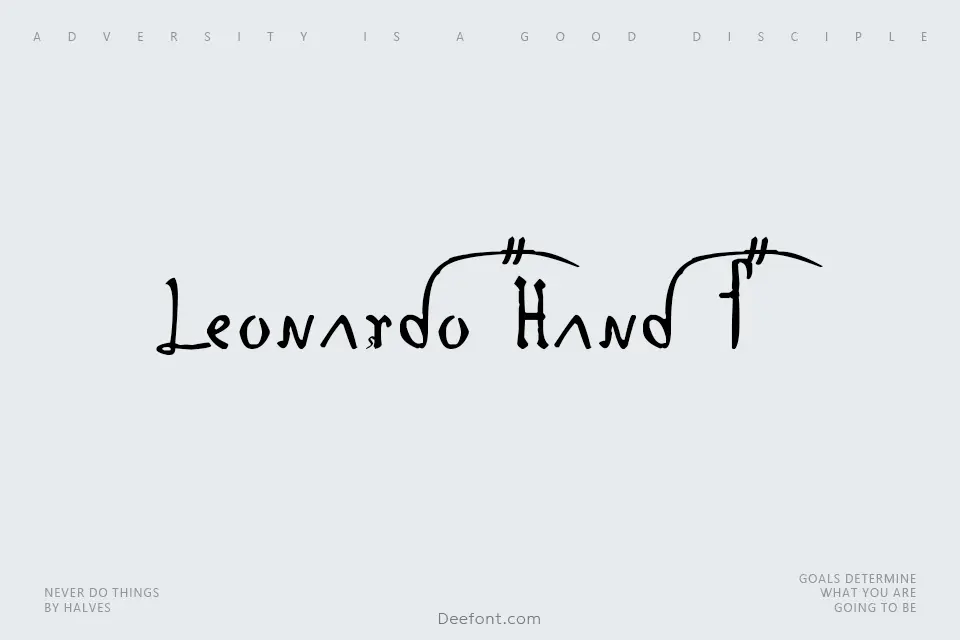
Leonardo Hand F Font
Leonardo Hand F Font is a distinctive handwritten font inspired by the mirror-writing style found in Leonardo Da Vinci’s codices. Designed by Douglas Lyle (under typO969) and released in 2013, it emulates the irregular, organic strokes of Da Vinci’s notes while adapting to modern left-to-right writing. The font features 236 glyphs with a casual, artistic flair, including uppercase and lowercase letters, numbers, and basic punctuation. Free for personal use, it’s ideal for creative projects like logos, branding, or invitations that require a humanistic, handcrafted aesthetic. Available in TTF format, its uneven lines and natural imperfections make it a popular choice for designs seeking authenticity and historical charm.
Designed by:Douglas Lyle